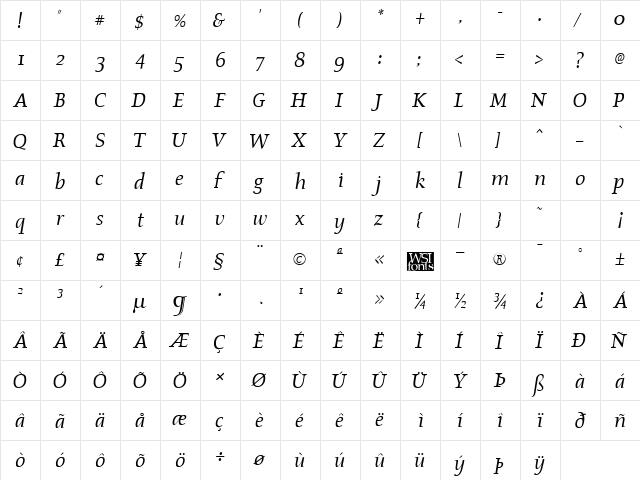
Oldstyle Italic
Design Context for Oldstyle Typeface
Oldstyle brings classic typographic sensibility to the table — its serifs and measured letterforms reflect centuries of print heritage. The slanted form adds forward momentum and visual energy.
Pro Tip: Set Oldstyle with slightly loose tracking in headlines to let each letterform's detail read clearly at display sizes.